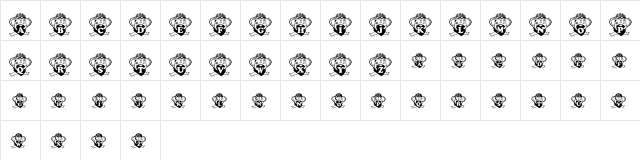
JNKANGELLUV Regular Font Preview
JNKANGELLUV Regular
Design Context for JNKANGELLUV Typeface
JNKANGELLUV is a composed and adaptable typeface that performs quietly and consistently across a wide range of design contexts.